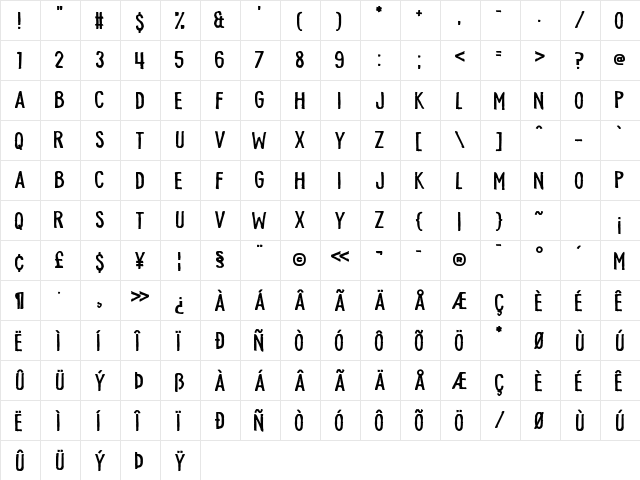
Memorial Lane Regular
| Designer | Allison James |
Design Context for Memorial Lane Typeface
Memorial Lane takes a measured approach to typography — its balanced proportions and neutral character make it a reliable workhorse for both digital and print work.